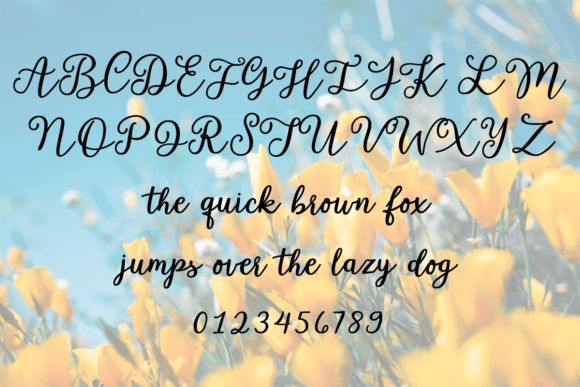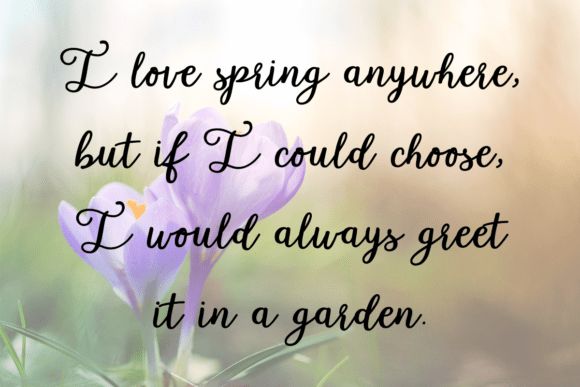
Garden Whimsy Font: Add a Touch of Whimsy to Your Designs
Are you looking for a font that can add a playful and charming touch to your designs? Look no further than the Garden Whimsy Font. This delightful cursive font is perfect for invitations, logos, and creative projects, and its flowing letters are sure to bring a smile to anyone’s face.
What is Garden Whimsy Font?
Garden Whimsy is a playful, bouncy cursive font that is full of charm and character. Its unique and whimsical design makes it perfect for adding a touch of personality to any design. The font’s flowing letters are reminiscent of handwritten script, but with a more playful and carefree feel.
Features of Garden Whimsy Font
Garden Whimsy Font has a number of features that make it perfect for designers and crafters. Some of its key features include:
- Playful and whimsical design: Garden Whimsy Font has a unique and playful design that is sure to add a touch of whimsy to any design.
- Flowing letters: The font’s flowing letters are reminiscent of handwritten script, but with a more playful and carefree feel.
- Perfect for invitations and logos: Garden Whimsy Font is perfect for invitations, logos, and creative projects.
- Easy to read: Despite its playful design, Garden Whimsy Font is easy to read and understand.
Uses for Garden Whimsy Font
Garden Whimsy Font is a versatile font that can be used for a wide range of design projects. Some of its most popular uses include:
- Invitations: Garden Whimsy Font is perfect for invitations, including wedding invitations, birthday invitations, and baby shower invitations.
- Logos: The font’s playful and whimsical design makes it perfect for logos, particularly for businesses that want to add a touch of personality to their brand.
- Creative projects: Garden Whimsy Font is perfect for creative projects, including scrapbooking, card making, and other paper crafts.
Tips for Using Garden Whimsy Font
Here are a few tips for using Garden Whimsy Font in your designs:
- Use it sparingly: While Garden Whimsy Font is a beautiful font, it can be overwhelming if used too much. Use it sparingly to add a touch of whimsy to your design.
- Pair it with a simple font: Pair Garden Whimsy Font with a simple font to create a beautiful contrast.
- Experiment with colors: Garden Whimsy Font looks beautiful in a variety of colors, so don’t be afraid to experiment and find the perfect color for your design.
Garden Whimsy Font is a beautiful and playful cursive font that is perfect for adding a touch of whimsy to any design. Its flowing letters and charming design make it perfect for invitations, logos, and creative projects. Whether you’re a designer or a crafter, Garden Whimsy Font is sure to bring a smile to your face and inspire your creativity. So why not give it a try and let your words bloom with Garden Whimsy?